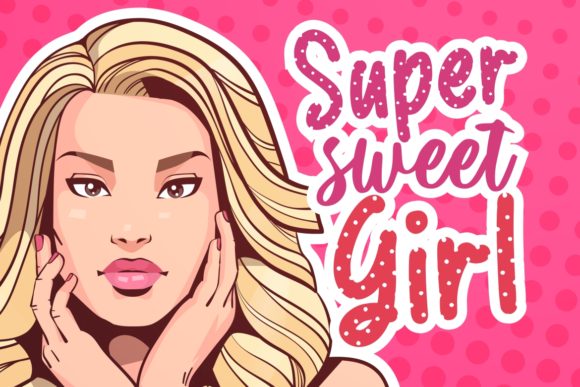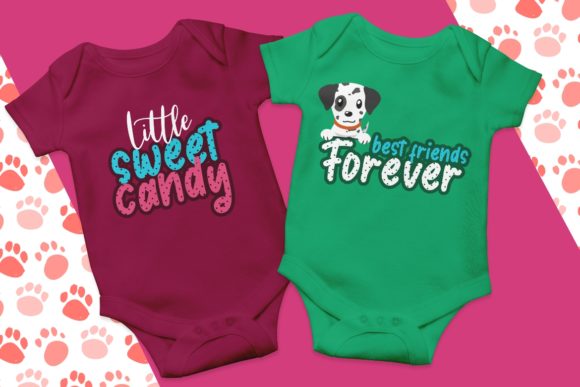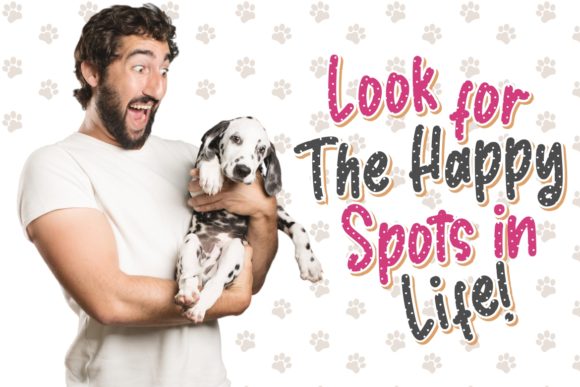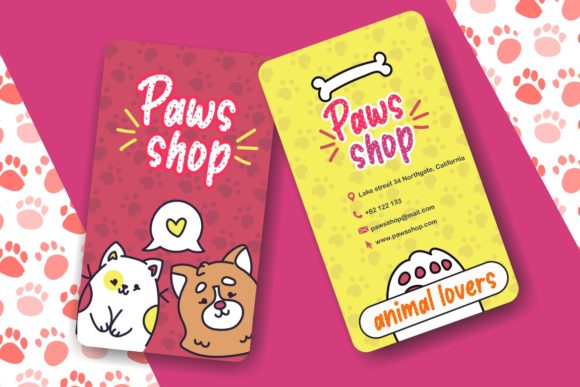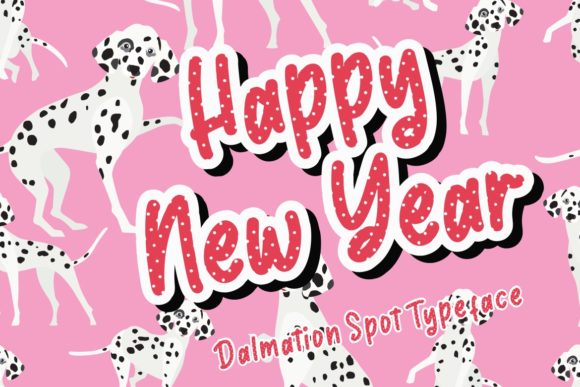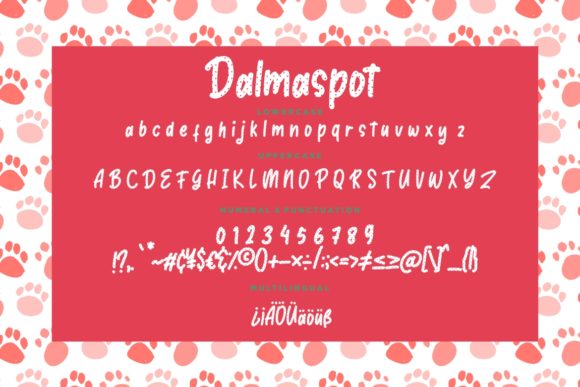
Unleash Your Creativity with Dalmaspot Font: The Playful Typeface with Dalmatian Spots
Are you a designer or crafter looking for a unique and playful font to add a personal touch to your projects? Look no further than Dalmaspot Font, a charming typeface that combines classic lettering with the iconic spots of a dalmatian. In this article, we’ll dive into the world of Dalmaspot Font, exploring its features, benefits, and uses, as well as provide tips and inspiration for incorporating it into your crafting projects.
What is Dalmaspot Font?
Dalmaspot Font is a digital typeface designed to bring a touch of whimsy and fun to your designs. As its name suggests, this font features dalmatian spots integrated into its letters, making it a one-of-a-kind addition to any project. Whether you’re working on a DIY craft, a branding campaign, or a digital design, Dalmaspot Font is sure to turn heads and spark creativity.
Key Features of Dalmaspot Font
- Playful and Unique Design: Dalmaspot Font boasts a playful and eye-catching design, perfect for adding a personal touch to your projects.
- Dalmatian Spots: The font’s distinctive dalmatian spots add a fun and quirky element to your designs.
- High-Quality and Scalable: Dalmaspot Font is a high-quality digital font that can be scaled up or down without losing its charm.
Benefits of Using Dalmaspot Font
So, why choose Dalmaspot Font for your next project? Here are just a few benefits of using this unique typeface:
- Adds a Personal Touch: Dalmaspot Font helps you stand out from the crowd and adds a personal touch to your designs.
- Perfect for Kids’ Projects: The font’s playful design makes it ideal for kids’ birthday parties, nursery decor, and other projects geared towards children.
- Great for Branding and Marketing: Dalmaspot Font can help your brand or business stand out and establish a fun, approachable identity.
- Endless Creative Possibilities: With Dalmaspot Font, the creative possibilities are endless – use it for crafting, scrapbooking, card making, and more!
Tips for Using Dalmaspot Font
Ready to get started with Dalmaspot Font? Here are some tips to help you make the most of this unique typeface:
- Pair it with Solids: Pair Dalmaspot Font with solid colors or simple patterns to let the font’s playful design take center stage.
- Experiment with Sizes: Try using Dalmaspot Font in different sizes to create visual interest and hierarchy in your designs.
- Add Texture and Patterns: Mix and match Dalmaspot Font with textures and patterns to add depth and visual interest to your projects.
- Get Creative with Colors: Don’t be afraid to experiment with different colors and color combinations to make Dalmaspot Font truly pop.
Inspiration and Ideas for Using Dalmaspot Font
Need some inspiration for using Dalmaspot Font? Here are a few ideas to get you started:
- Kids’ Party Decor: Use Dalmaspot Font to create custom banners, invitations, and decorations for kids’ birthday parties.
- Custom Stationery: Add a personal touch to your stationery and correspondence with Dalmaspot Font.
- DIY Crafts: Use Dalmaspot Font to create custom titles and labels for your DIY crafts and scrapbooking projects.
- Branding and Marketing Materials: Establish a fun and playful brand identity with Dalmaspot Font.
In conclusion, Dalmaspot Font is a unique and playful typeface that’s sure to add a touch of personality to any project. With its dalmatian spots and classic lettering, this font is perfect for designers and crafters looking to stand out from the crowd. So why wait? Download Dalmaspot Font today and unleash your creativity!